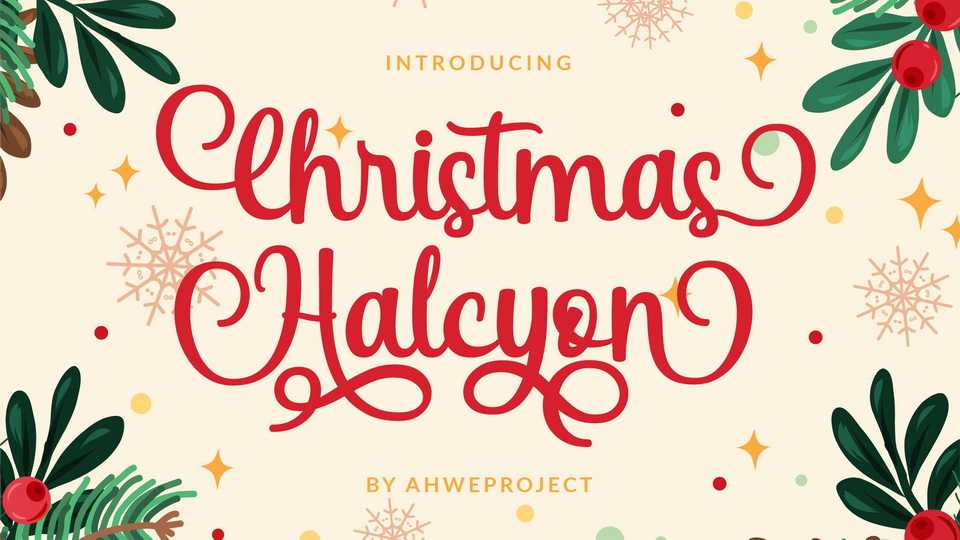
Download Christmas Halcyon font, a beautiful and romantic handwritten typeface. Its distinct and well rounded letters make Christmas Halcyon font a masterpiece.